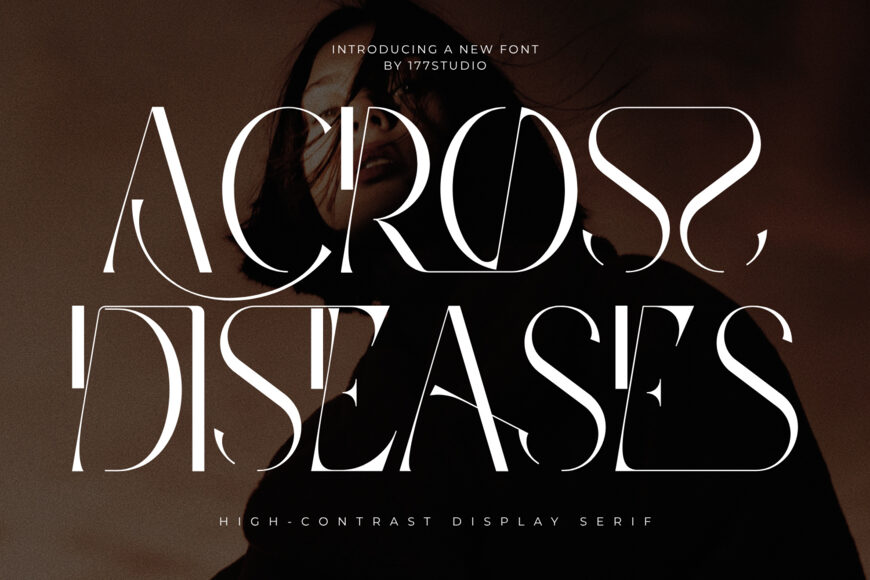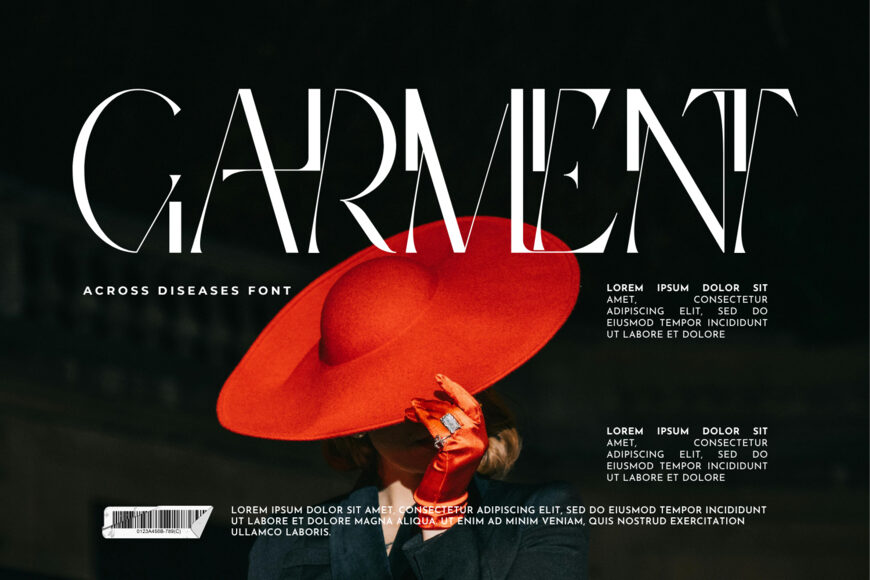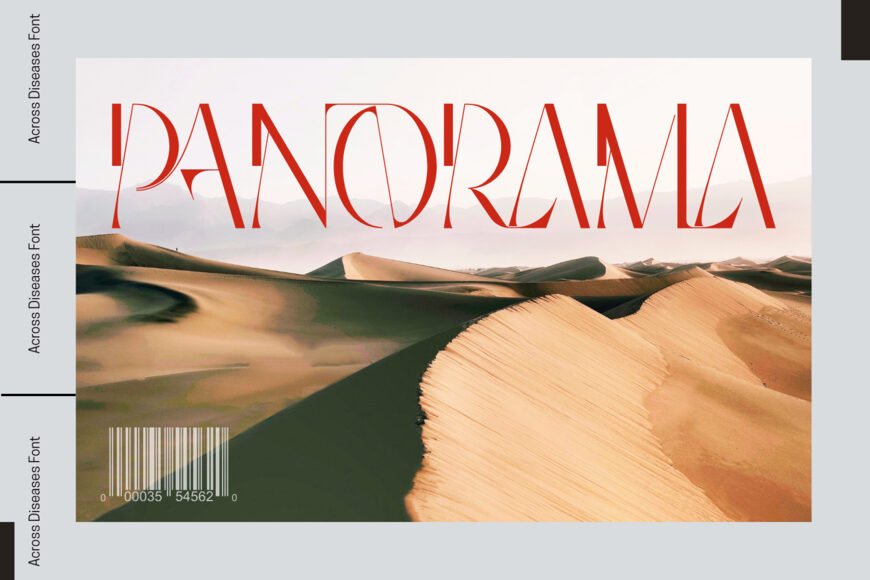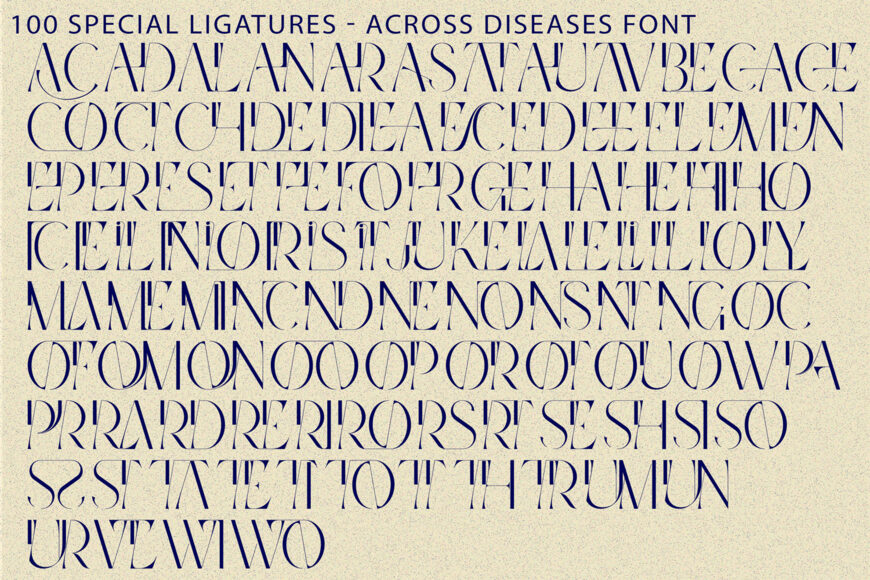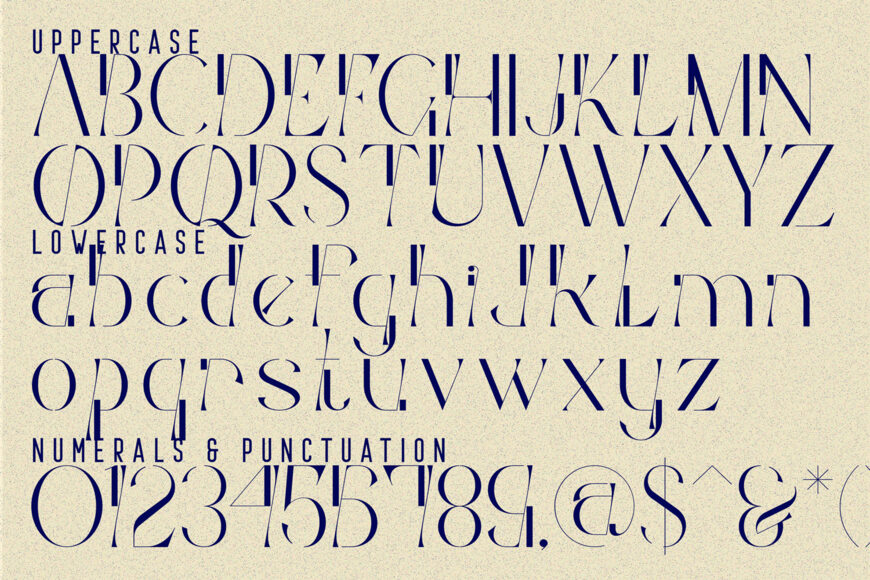
Across Diseases Font
Across Diseases is an elegant high-contrast display serif that blends contemporary fashion typography with the refined character of classic Didone letterforms. Defined by dramatic contrasts between bold strokes and delicate hairlines, the typeface features tall, graceful proportions, sculptural curves, and expressive details that give every word a sophisticated visual rhythm.
Created for designs that demand elegance and individuality, Across Diseases is especially suited to fashion branding, luxury logos, beauty and cosmetic packaging, perfume labels, magazine covers, editorial layouts, wedding stationery, sophisticated advertising, posters, invitations, and premium product identities.